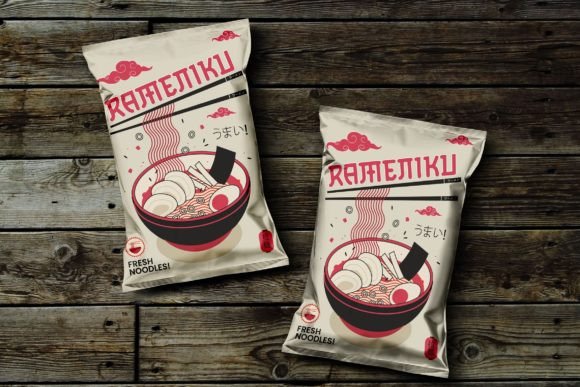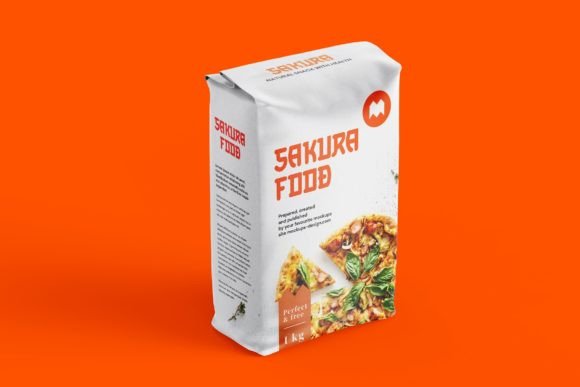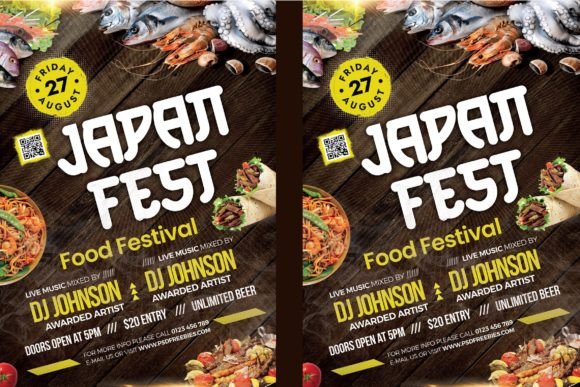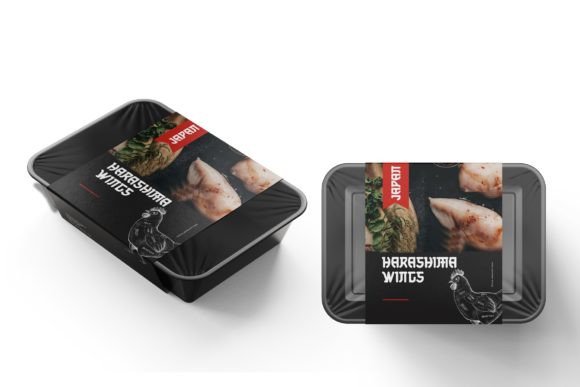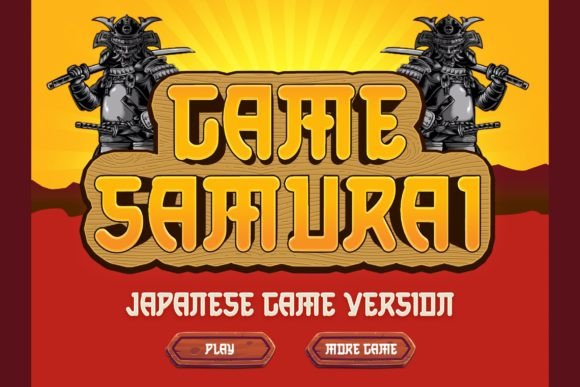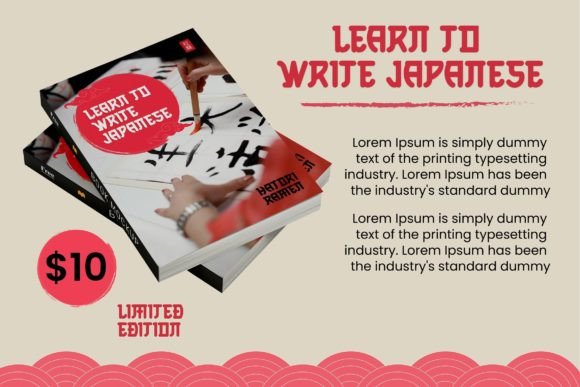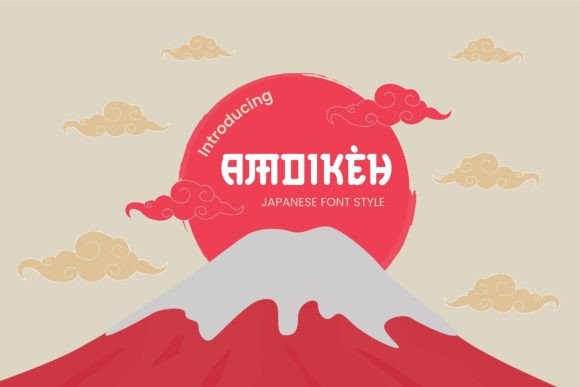
Amoikeh Font: Elevate Your Designs with Elegant Japanese Typography
Are you a designer or crafter looking for a unique and elegant font to elevate your projects? Look no further than the Amoikeh Font, a stunning Japanese-style typeface that’s perfect for a wide range of applications. In this article, we’ll explore the features and benefits of Amoikeh Font, and show you how it can take your designs to the next level.
What is Amoikeh Font?
Amoikeh Font is a beautiful display font inspired by traditional Japanese typography. Its elegant and refined design makes it perfect for projects that require a touch of sophistication and cultural flair. Whether you’re working on a logo, branding, invitation, anime title, label, photography project, game, or movie, Amoikeh Font is an excellent choice.
Key Features of Amoikeh Font
- Elegant Design: Amoikeh Font boasts a sleek and refined design that’s perfect for creating stunning visual effects.
- Japanese Style: Inspired by traditional Japanese typography, this font adds a touch of cultural authenticity to your designs.
- Display Font: Amoikeh Font is designed to make a statement, making it perfect for headlines, titles, and other display text.
- Versatile: Use Amoikeh Font for a wide range of projects, from logos and branding to invitations, anime titles, labels, photography, games, and movies.
Benefits of Using Amoikeh Font
So why choose Amoikeh Font for your next project? Here are just a few benefits of using this amazing font:
- Stand Out: With its unique and elegant design, Amoikeh Font helps your project stand out from the crowd.
- Cultural Significance: Add a touch of Japanese culture to your designs, giving them an extra layer of depth and meaning.
- Professional Look: Amoikeh Font’s refined design gives your project a professional and polished look.
Amoikeh Font is perfect for a wide range of creative projects, including:
- Logos and Branding: Create a stunning logo or brand identity with Amoikeh Font.
- Invitations: Add a touch of elegance to your invitations with this beautiful font.
- Anime Titles: Create eye-catching anime titles with Amoikeh Font’s unique and elegant design.
- Labels: Use Amoikeh Font to create stunning labels for your products or packaging.
- Photography: Add a touch of sophistication to your photography with Amoikeh Font.
- Games and Movies: Use Amoikeh Font to create stunning titles and credits for your game or movie project.
In conclusion, Amoikeh Font is an elegant and versatile Japanese-style typeface that’s perfect for a wide range of creative projects. With its unique design, cultural significance, and professional look, this font is sure to elevate your designs to the next level. Whether you’re a designer or crafter, Amoikeh Font is an excellent choice for your next project. So why wait? Download Amoikeh Font today and start creating stunning designs that will leave a lasting impression!